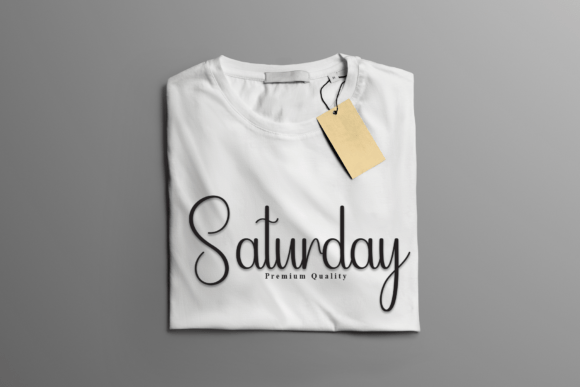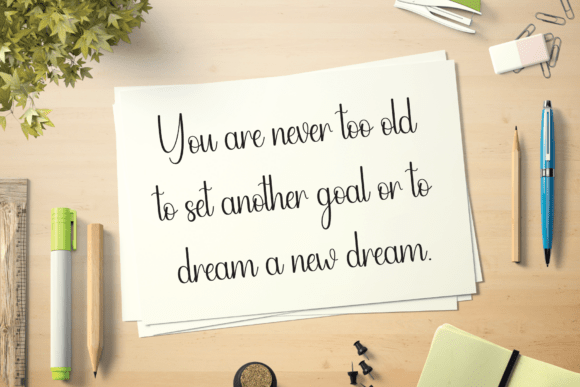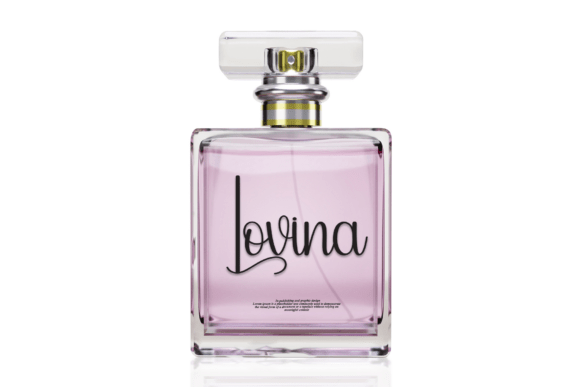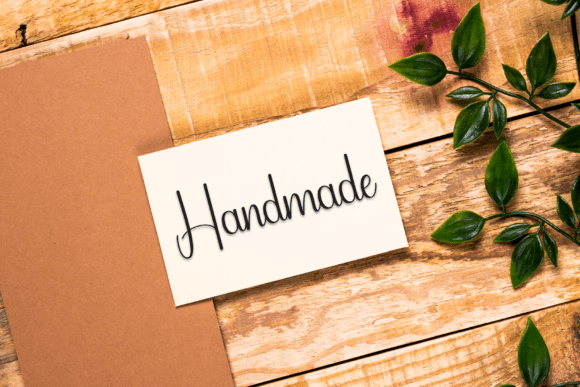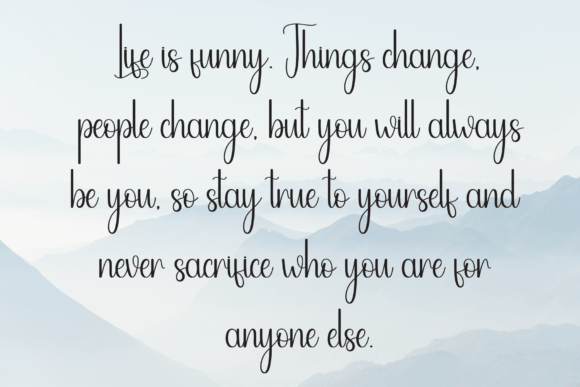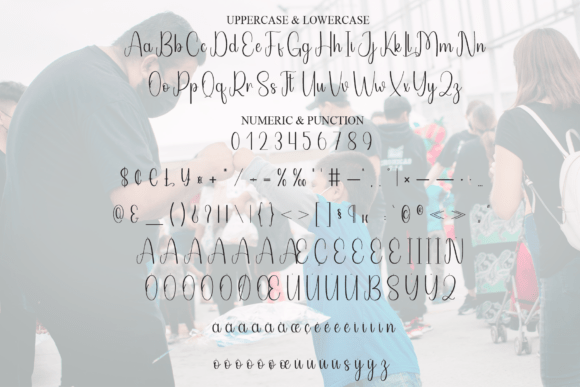
Introducing Charity Font: Elevate Your Designs with Elegance and Playfulness
In the world of typography, fonts play a crucial role in conveying the tone and personality of a design. For designers and crafters looking to add a touch of sophistication and whimsy to their projects, Charity Font is an excellent choice. This stylish handwritten script font seamlessly blends modern elegance with a playful touch, making it perfect for a wide range of applications.
The Unique Charm of Charity Font
Charity Font boasts fluid strokes and charming curves that bring a personal feel to any design. Its unique blend of modern sophistication and playfulness makes it an ideal choice for designers looking to create something truly special. Whether you’re working on a logo, packaging, or invitation, this typeface adds warmth, sophistication, and creativity to every project.
Key Features of Charity Font
- Handwritten Script Style: Charity Font features a beautiful handwritten script style that adds a personal touch to any design.
- Modern Elegance: With its fluid strokes and charming curves, this font exudes modern elegance and sophistication.
- Playful Touch: The playful touch in Charity Font makes it perfect for designs that require a bit of whimsy and fun.
- Versatile: This font is ideal for a wide range of applications, including logos, packaging, invitations, and more.
Charity Font is a versatile typeface that can be used by designers and crafters for various projects. Its unique charm and character make it perfect for:
- Logo Design: Create a lasting impression with a custom logo that features Charity Font.
- Packaging Design: Add a touch of elegance and sophistication to your packaging with this beautiful font.
- Invitation Design: Make your invitations stand out with the playful and modern charm of Charity Font.
- Stationery Design: Create beautiful stationery that reflects your personality with this lovely typeface.
Why Choose Charity Font?
With so many fonts available, why choose Charity Font? Here are a few reasons why this typeface stands out:
- Unique Style: Charity Font features a unique style that blends modern elegance with a playful touch.
- High-Quality Design: This font is designed with high-quality craftsmanship, ensuring that it looks great in any design.
- Easy to Read: Despite its elegant and playful style, Charity Font is easy to read, making it perfect for body text and headings.
- Versatile: This font can be used for a wide range of applications, from logos to packaging to invitations.
Tips for Using Charity Font
To get the most out of Charity Font, here are a few tips:
- Pair with Other Fonts: Pair Charity Font with other fonts to create a unique and visually appealing design.
- Experiment with Colors: Try out different colors to see how they affect the overall look and feel of your design.
- Use for Headings and Titles: Use Charity Font for headings and titles to add a touch of elegance and sophistication.
- Keep it Simple: Don’t overcomplicate your design – keep it simple and let Charity Font shine.